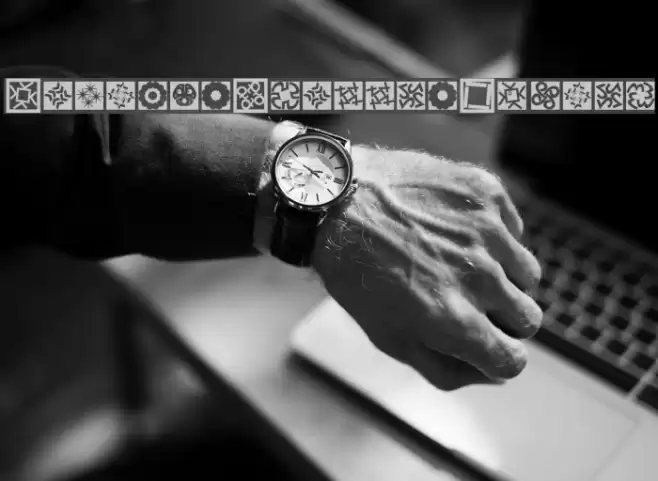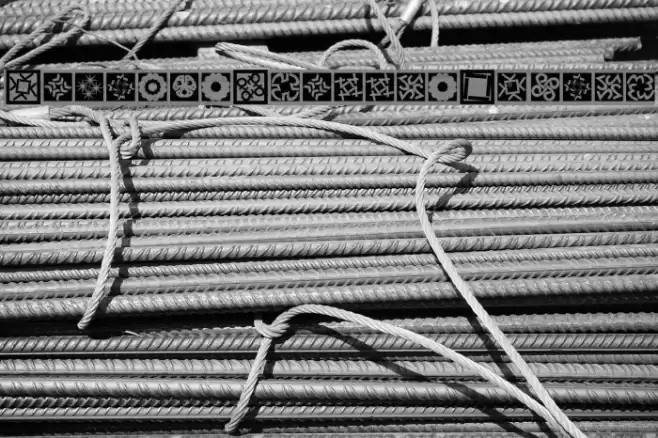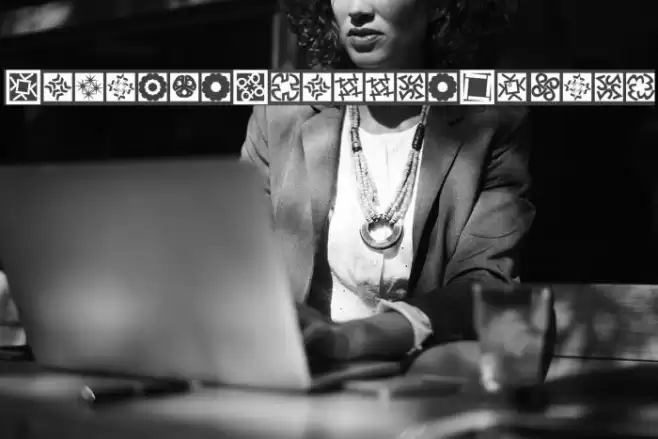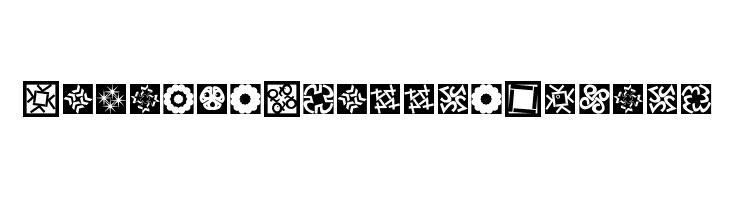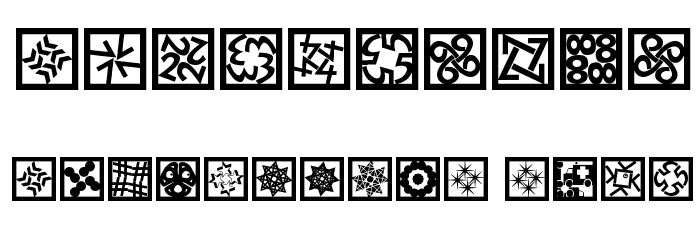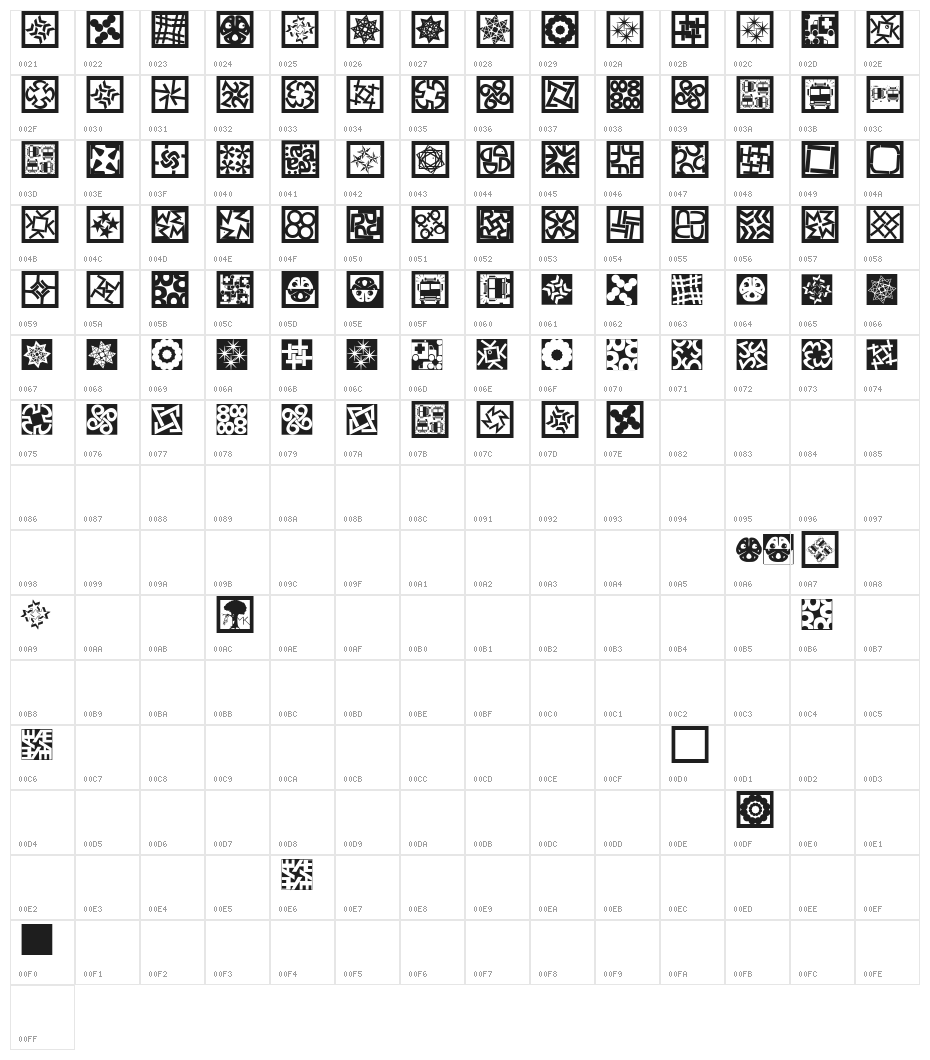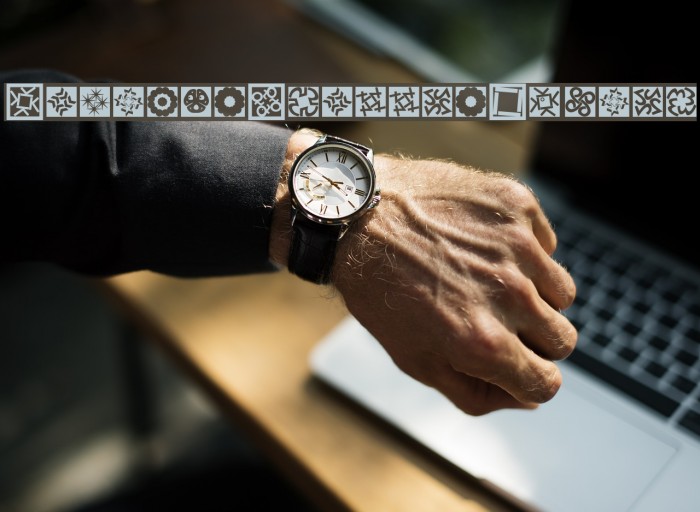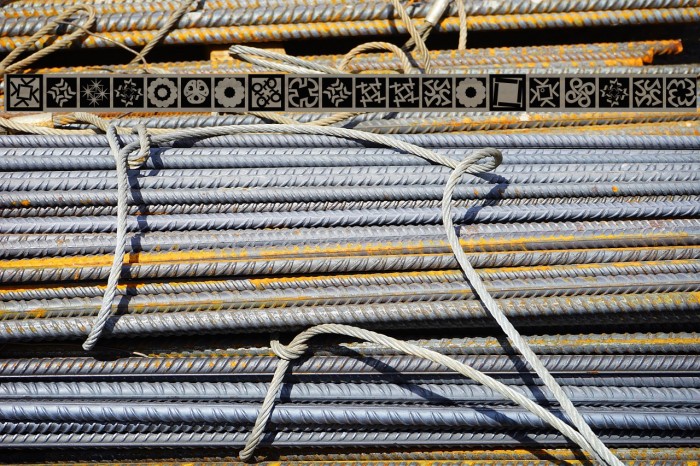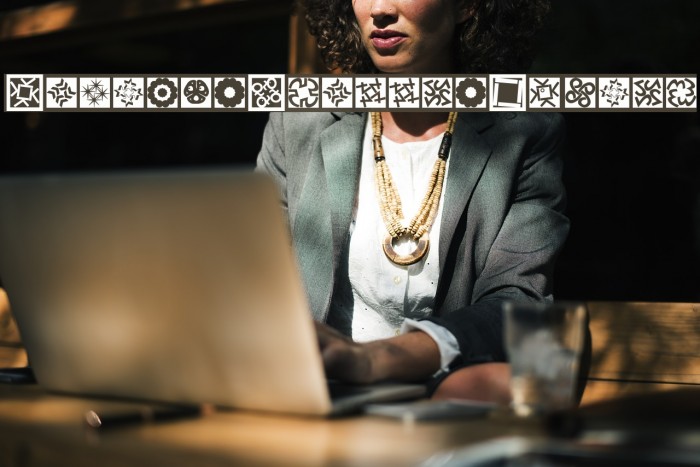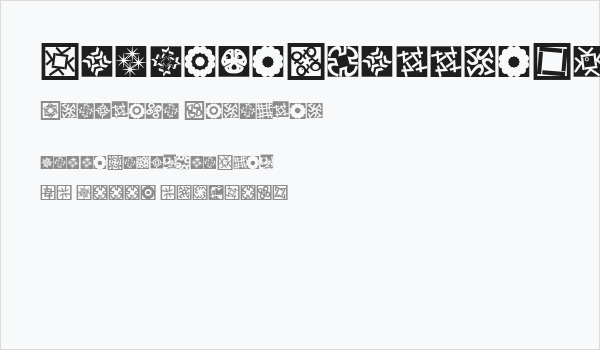
KaleidoQuattroInvers Font
KaleidoQuattroInvers Description
A decorative display font composed of intricate, abstract geometric patterns and kaleidoscopic motifs within square frames, featuring high contrast between black and white elements. Each character is a unique ornamental design rather than a traditional alphanumeric glyph.
Ornamental geometric display font with kaleidoscopic motifs from Uncategorized fonts.
- Proposed Projects: Posters, album covers, branding, decorative initials, art projects, digital collages.
- Overall Style: Decorative, Abstract, Modern
- Use Case: Logos, Headlines, Decorative elements